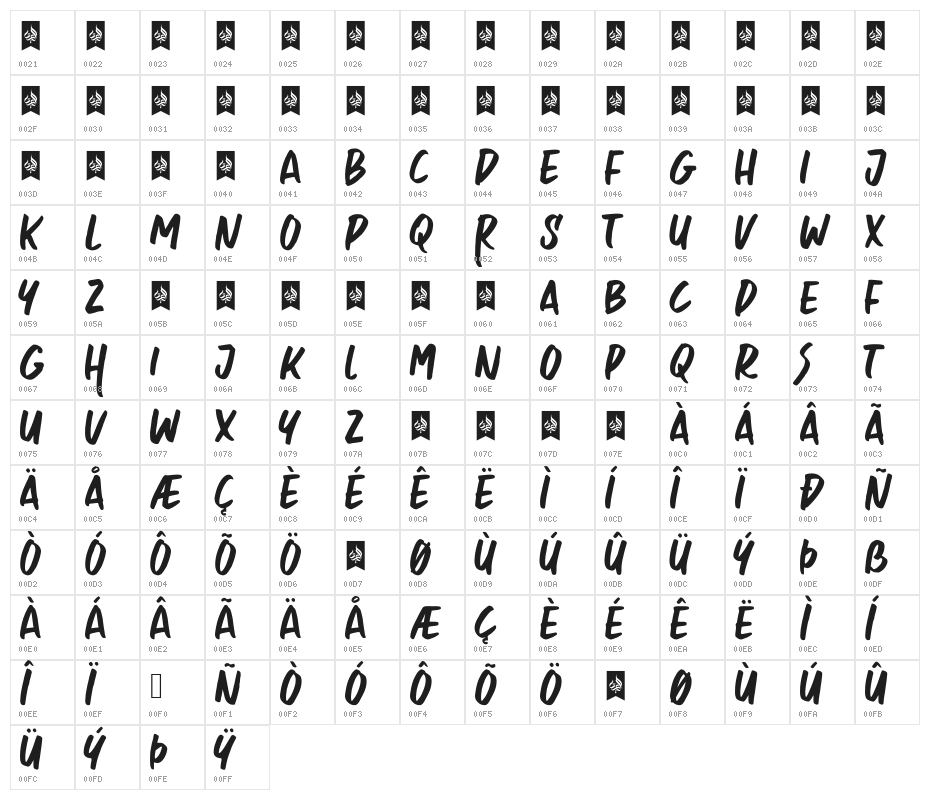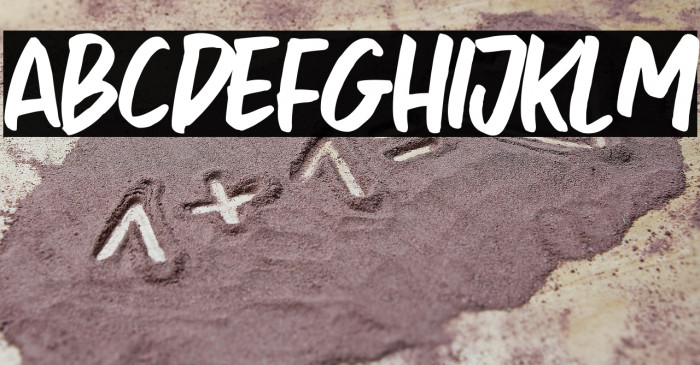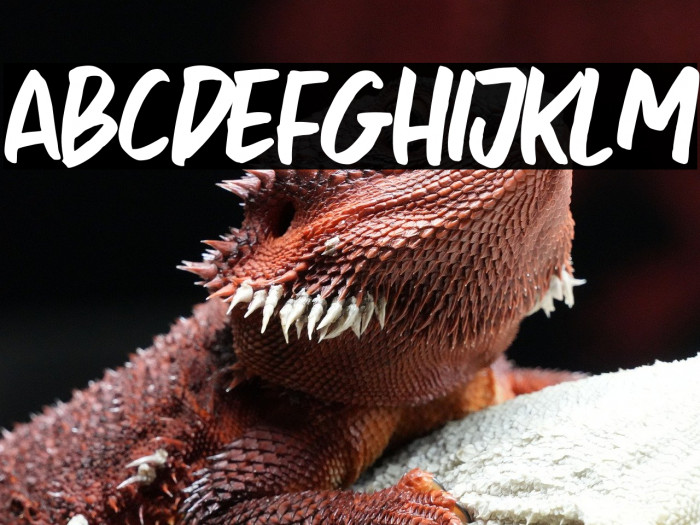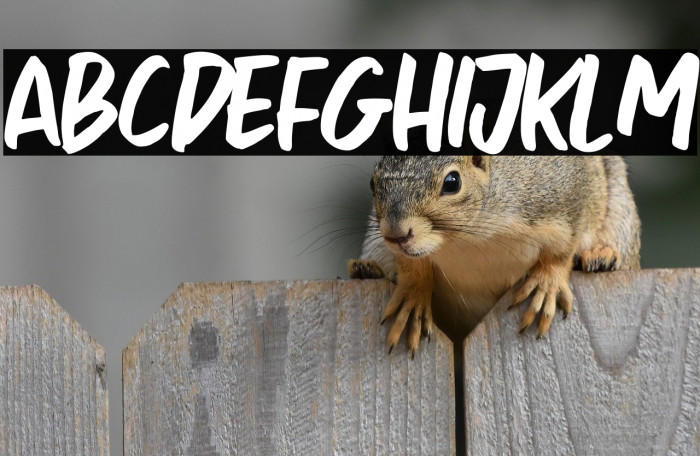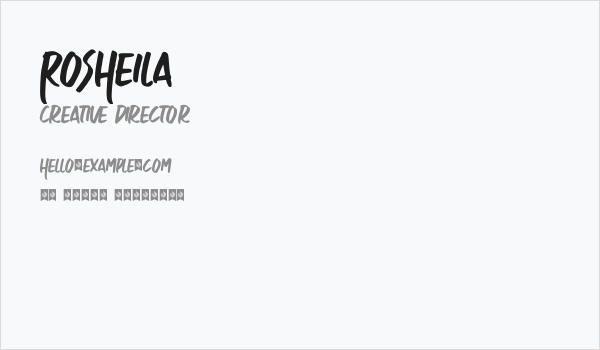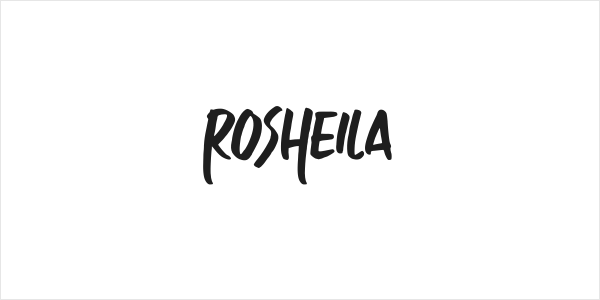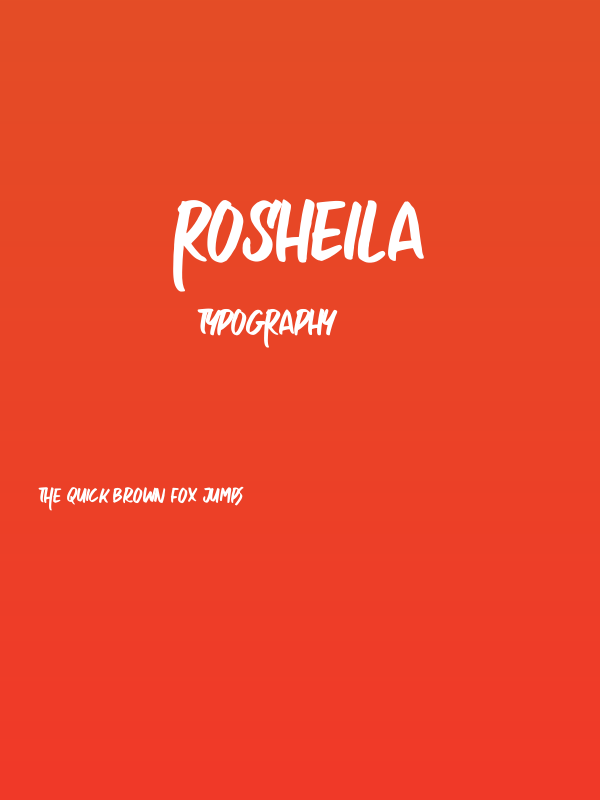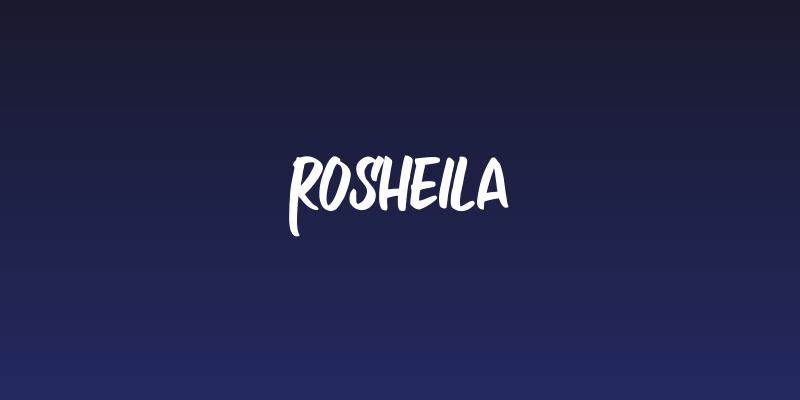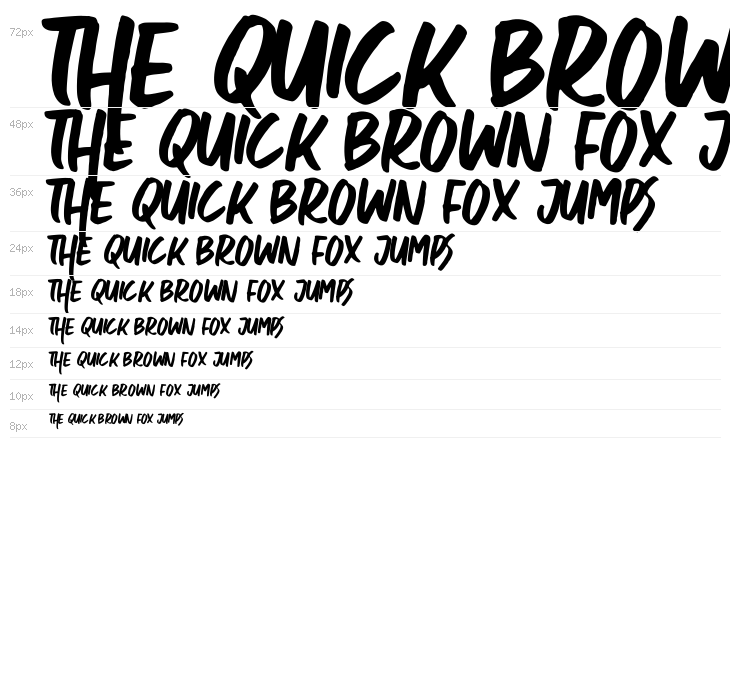
Rosheila Font
Rosheila Description
This font features a bold, energetic script style with a strong presence. The uppercase and lowercase letters are crafted with a dynamic flow, giving a sense of movement and spontaneity. The strokes are thick and consistent, providing a robust and impactful appearance. The characters are slightly slanted, enhancing the casual and informal vibe. The overall design is modern and expressive, making it suitable for creative and artistic projects. The font's unique style captures attention and adds a personal touch to any design.
| Proposed Projects | Ideal for branding, logo design, posters, and social media graphics. |